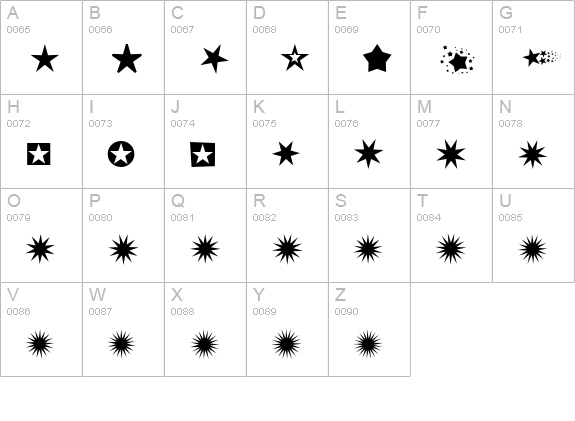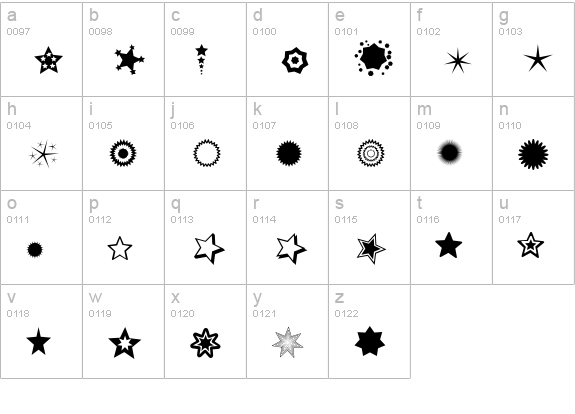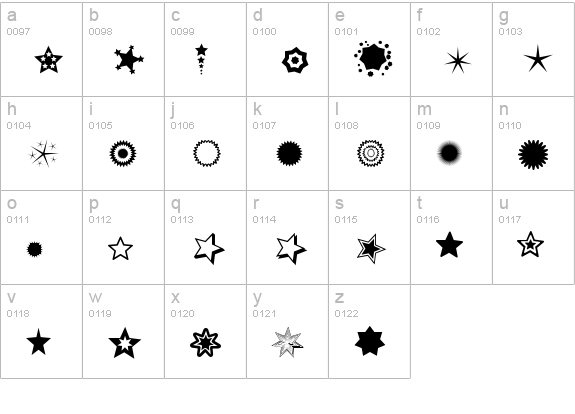
PizzaDude Stars Font Details
PizzaDude Stars font is a delightful and playful typeface that is sure to add a touch of fun to any design project. With its quirky and unique design, this font is perfect for capturing attention and creating a memorable impression. Featuring a range of stars in various sizes and styles, PizzaDude Stars font is ideal for adding a celestial touch to your designs. Whether you're working on a poster, flyer, logo, or any other creative project, this font will bring a touch of magic and whimsy to your work. One of the best things about PizzaDude Stars font is that it is completely free. That's right, you can download this font without spending a dime! It is freely available to download at FontsMarket.com, a trusted source for high-quality fonts. So why wait? Add a sprinkle of stardust to your designs with PizzaDude Stars font. Download it for free today and let your creativity shine!